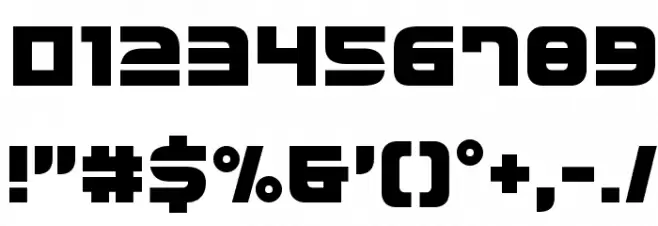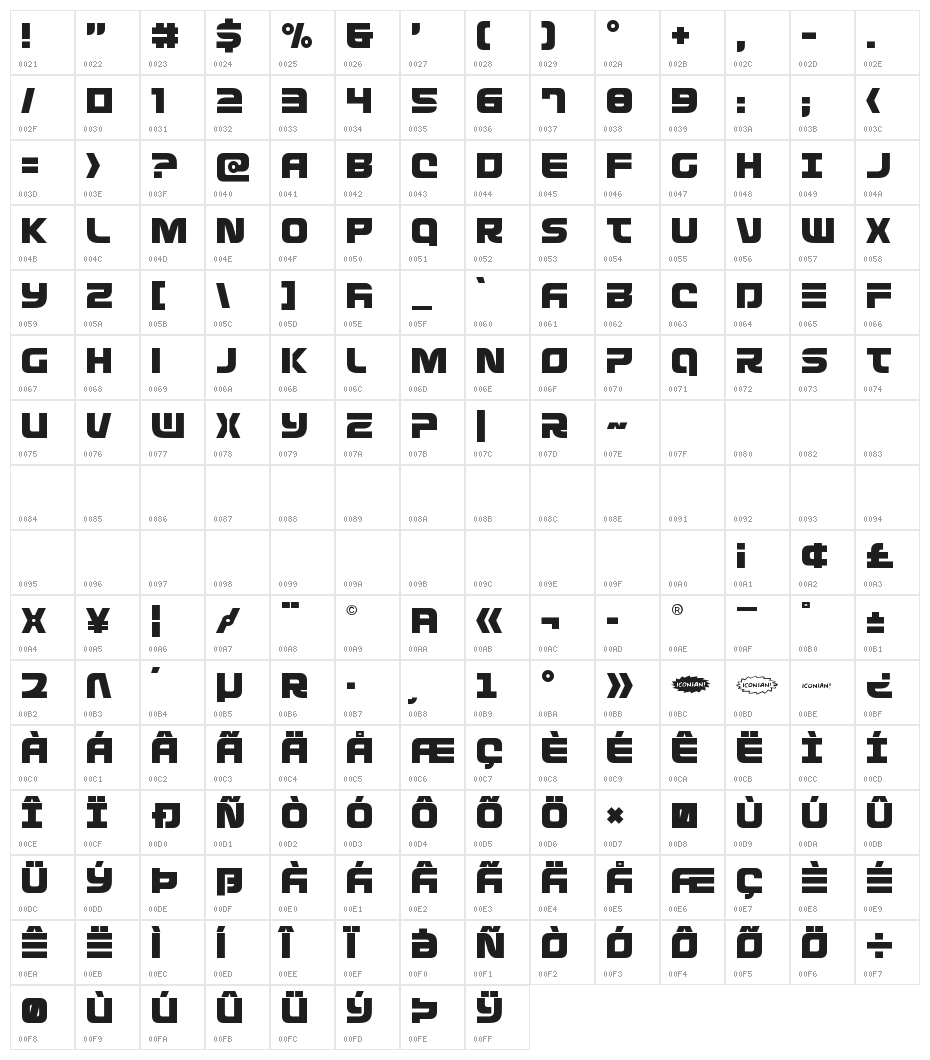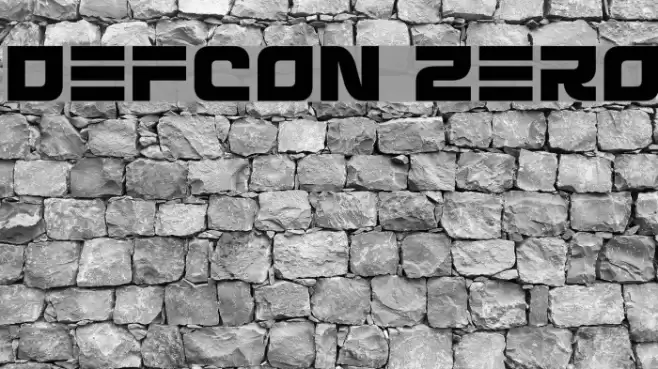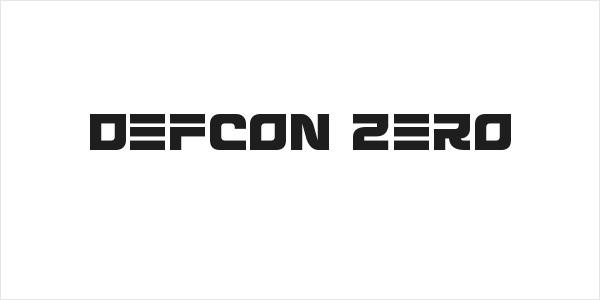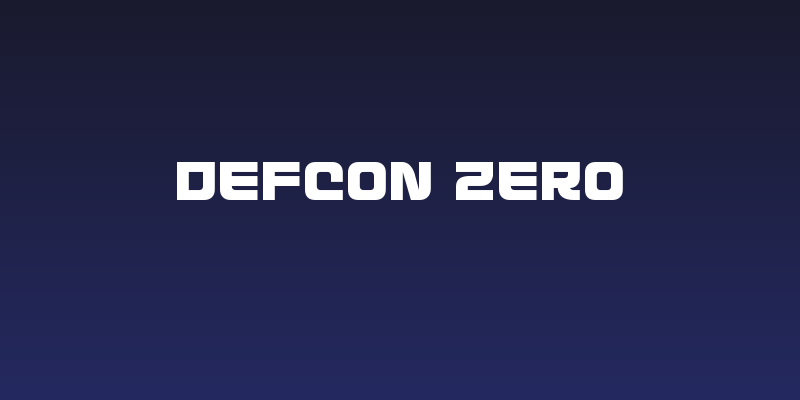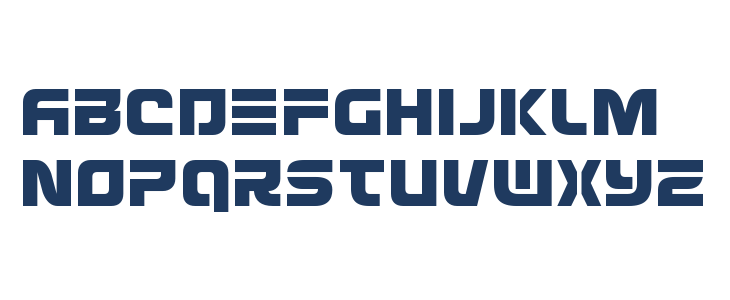
Defcon Zero Font
Defcon Zero Description
This font features a bold, geometric design with a futuristic and industrial feel. The characters are constructed with thick, uniform strokes that create a strong visual impact. The angular shapes and sharp edges give it a modern and assertive appearance, making it ideal for attention-grabbing headlines or branding. The uppercase and lowercase letters maintain a consistent style, while the numerals and special characters complement the overall aesthetic. Its design is reminiscent of digital or technological themes, making it suitable for projects that require a contemporary and edgy look.
Proposed ProjectsIdeal for technology branding, sci-fi movie posters, video game titles, and modern advertising campaigns.